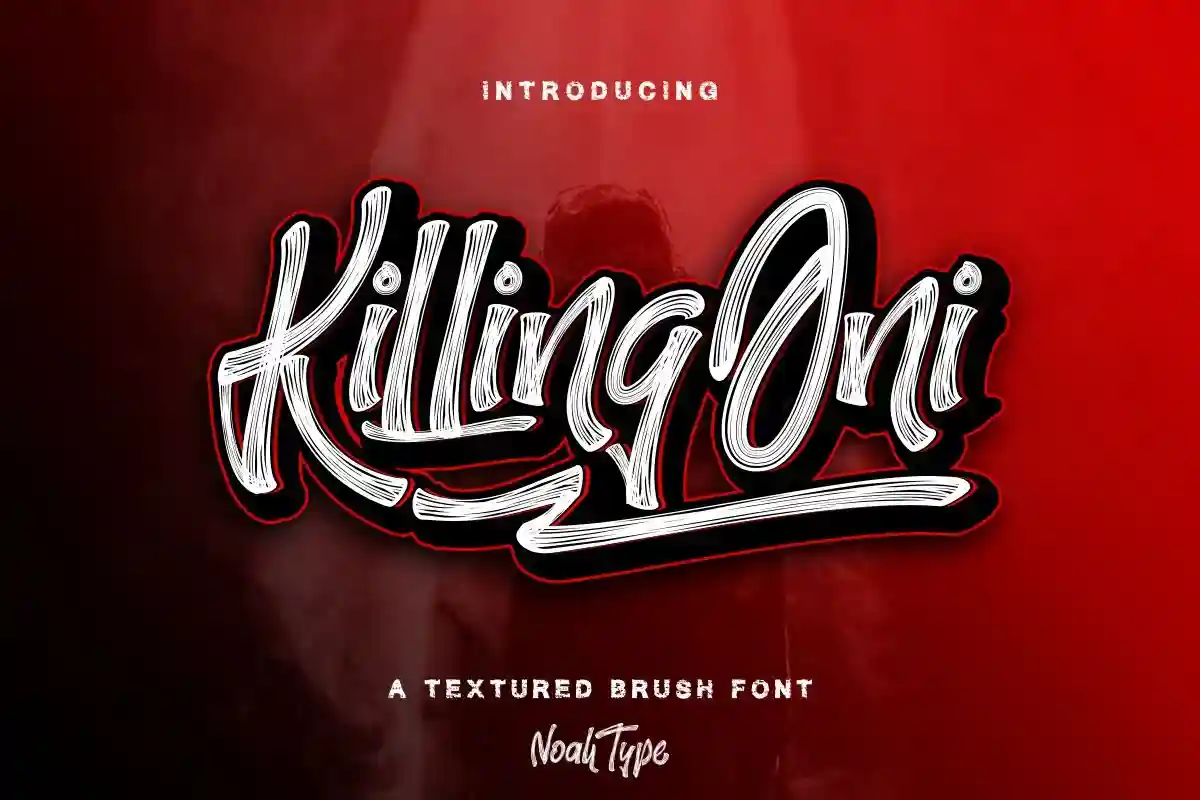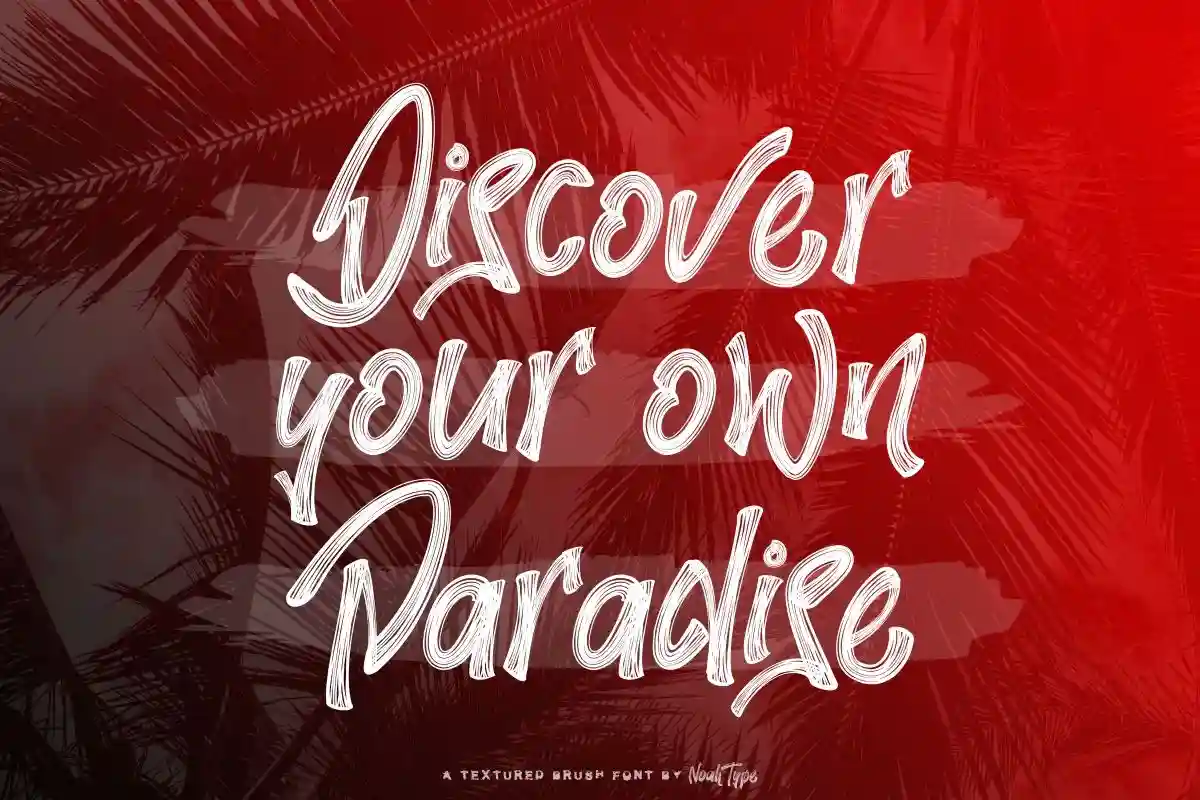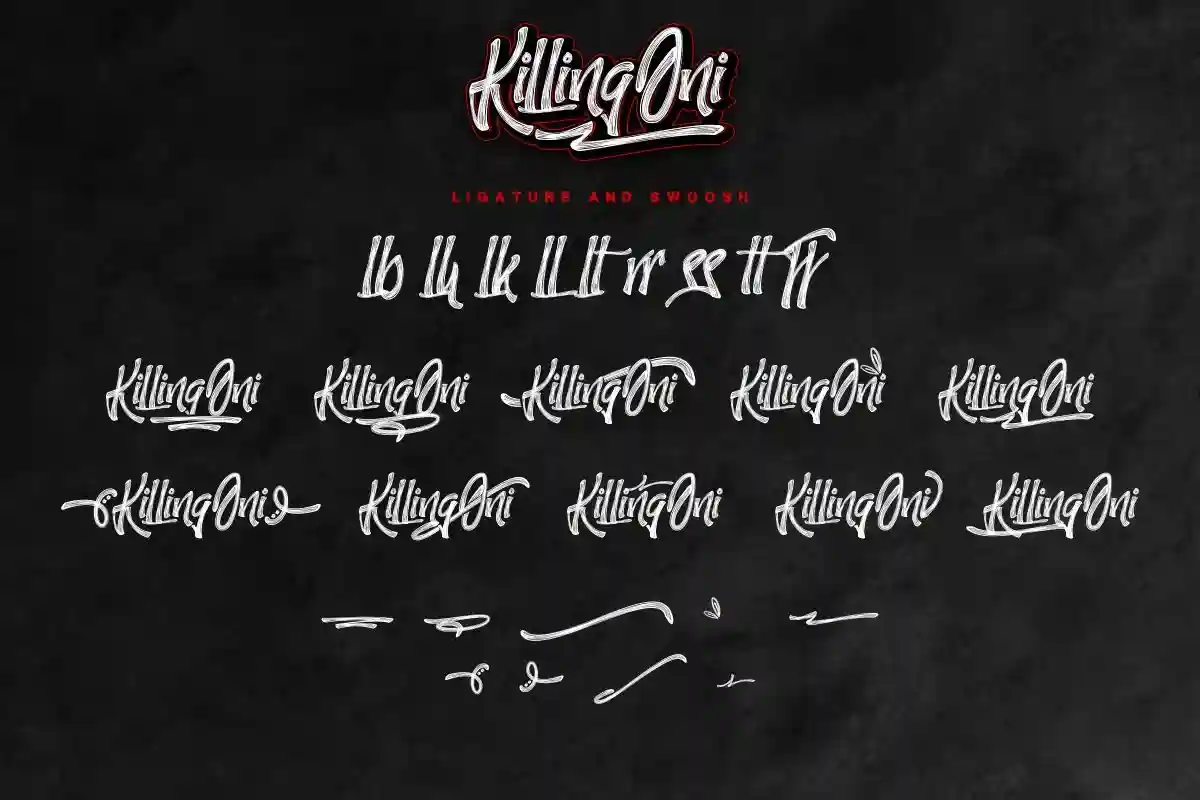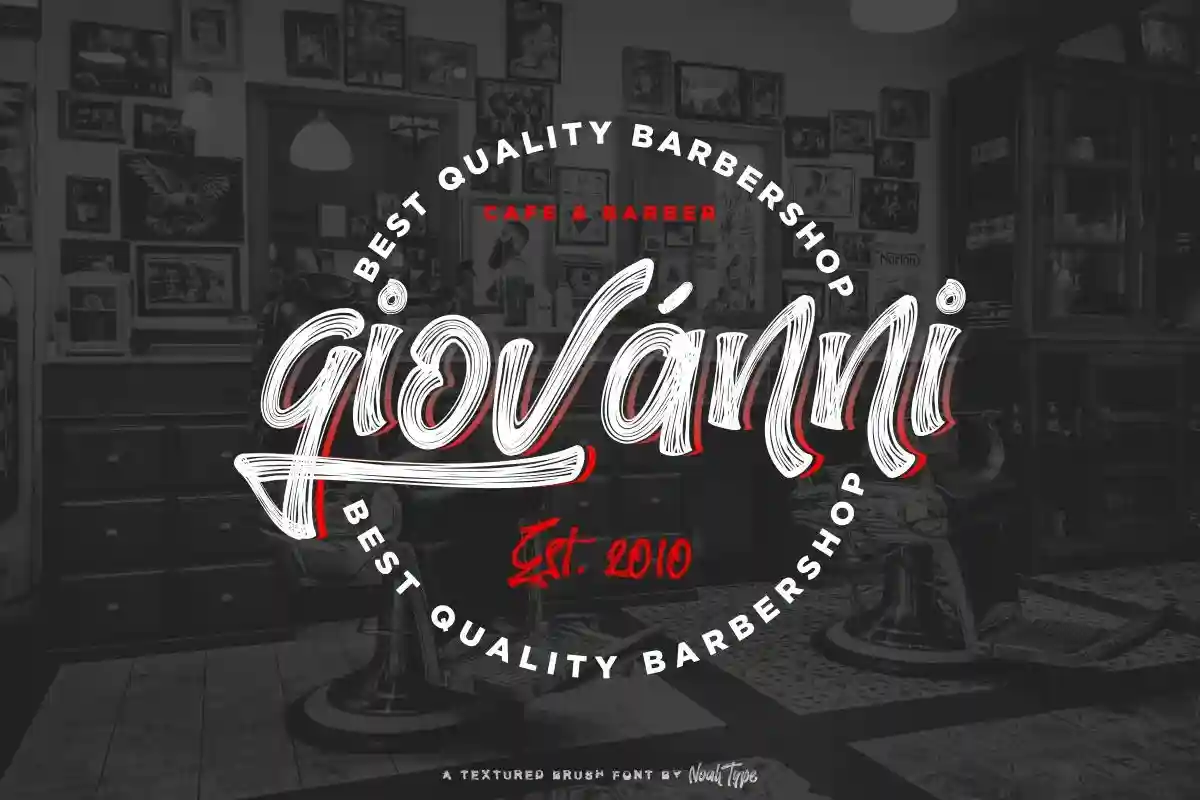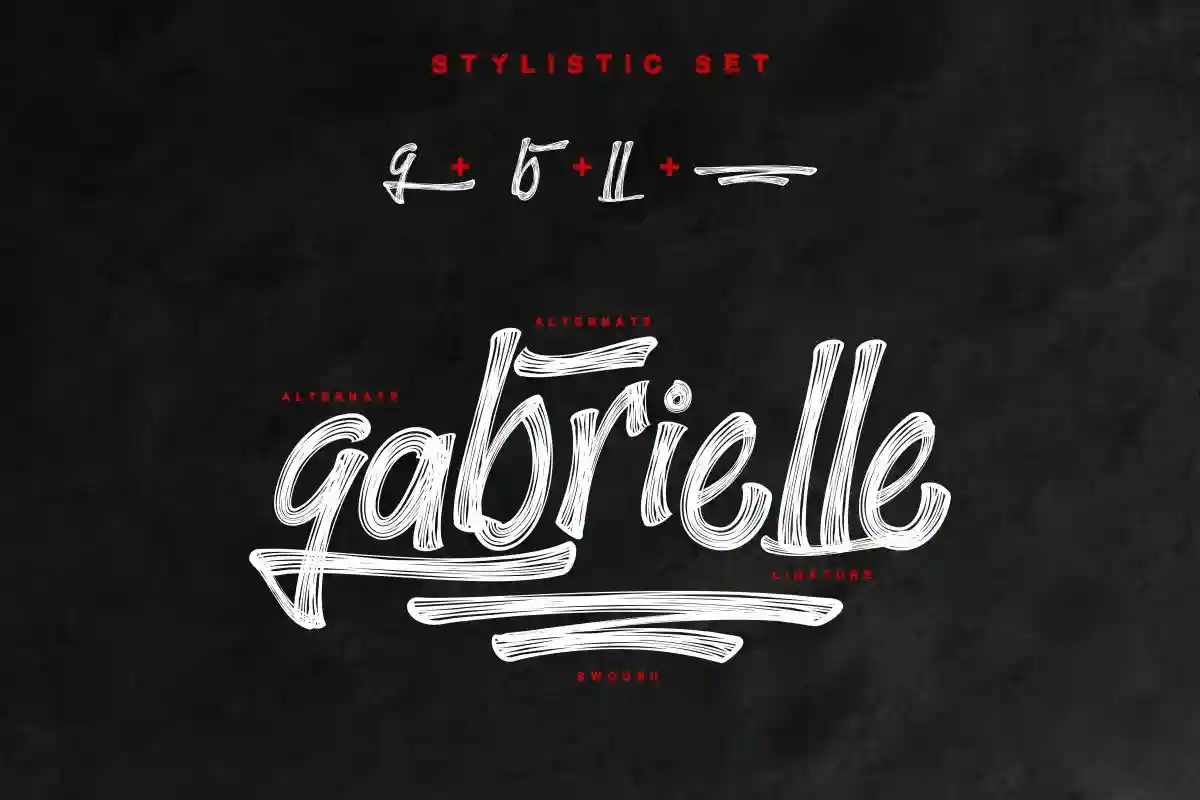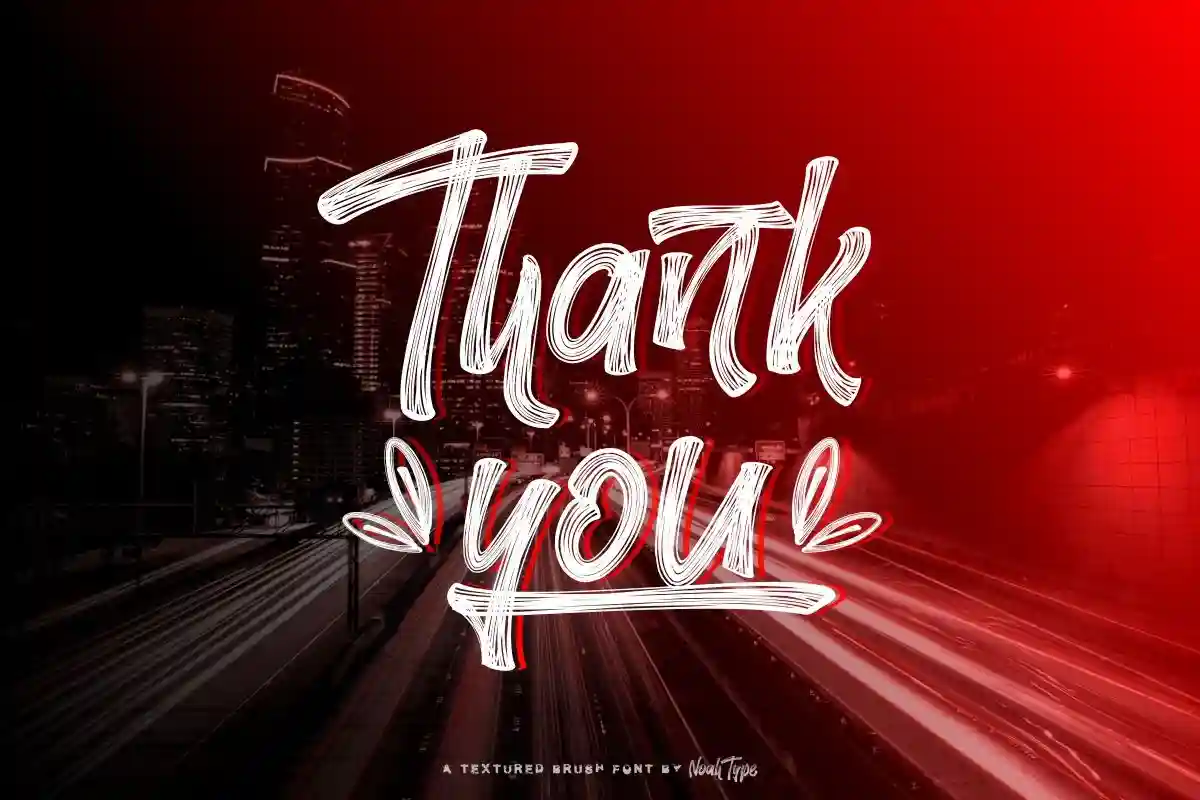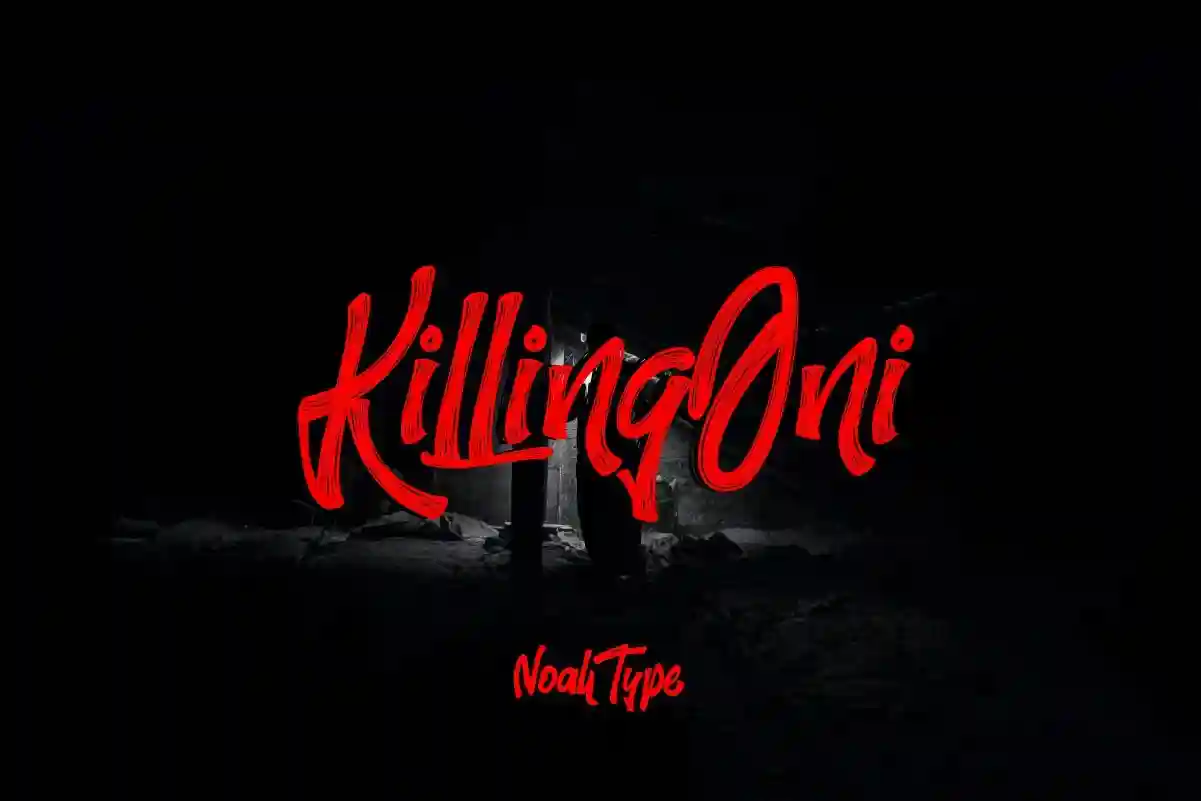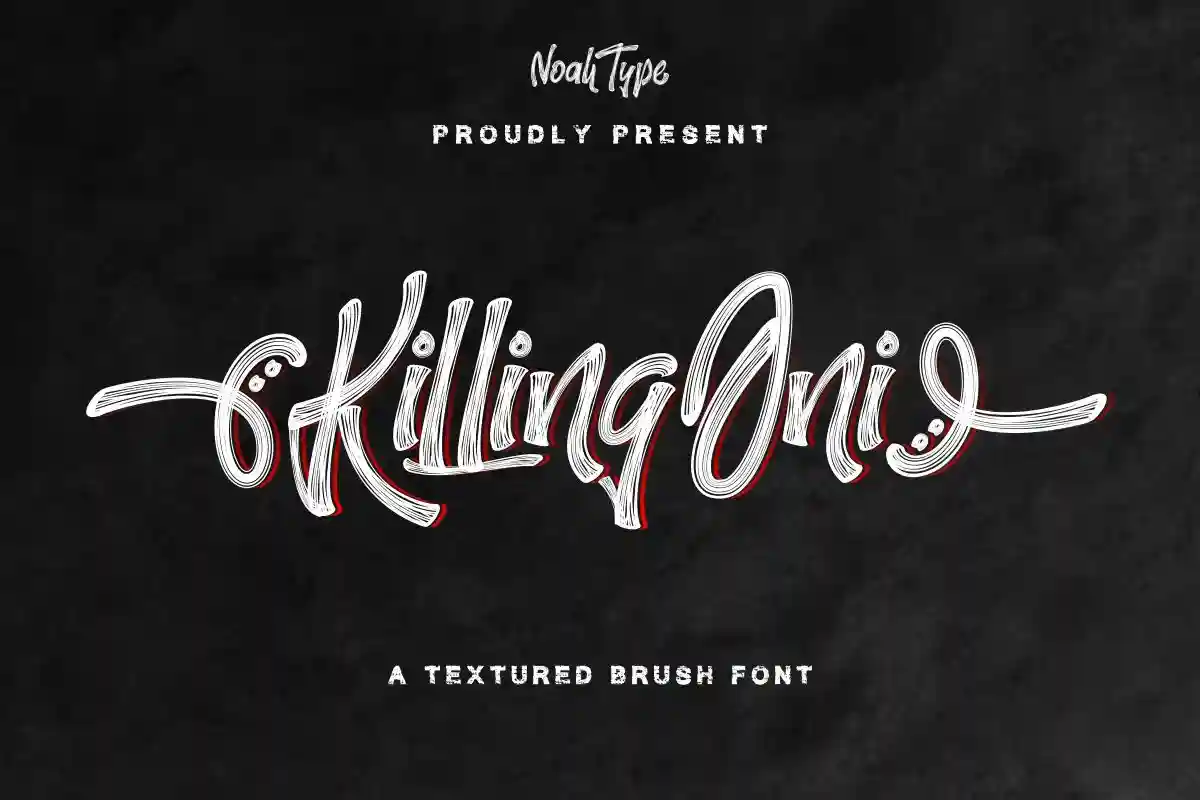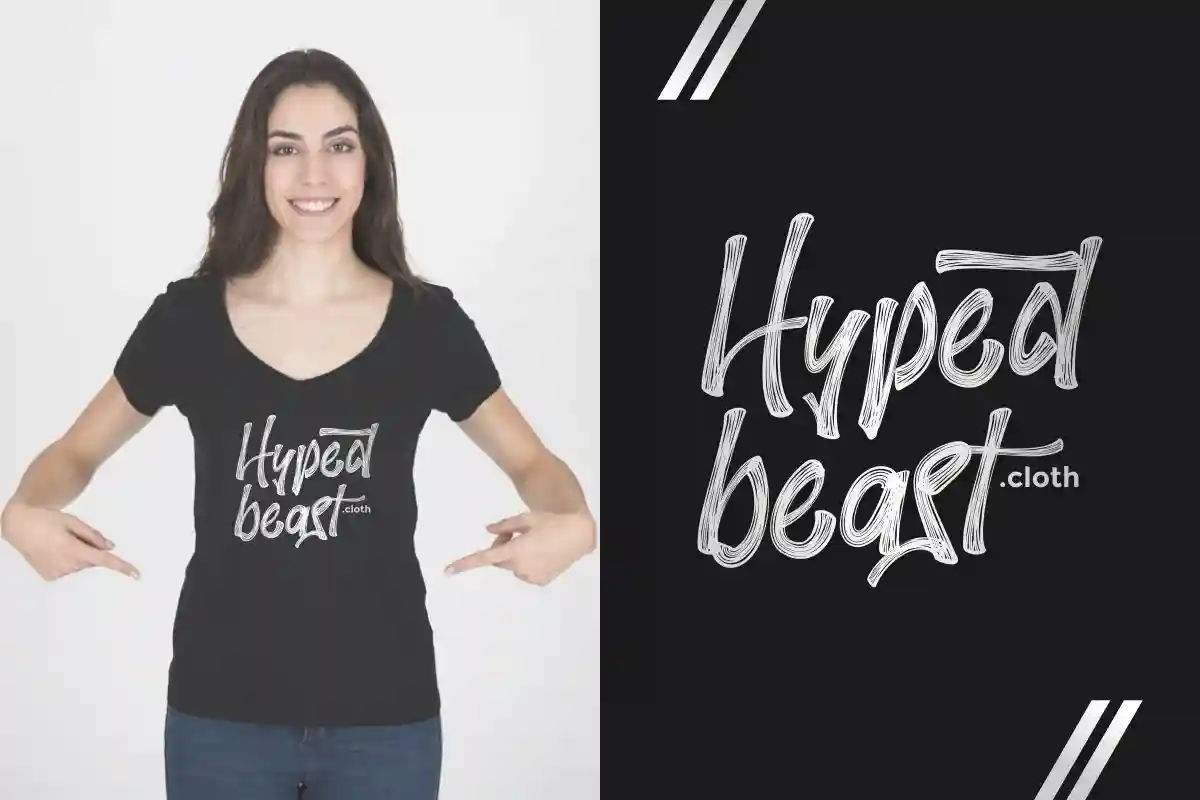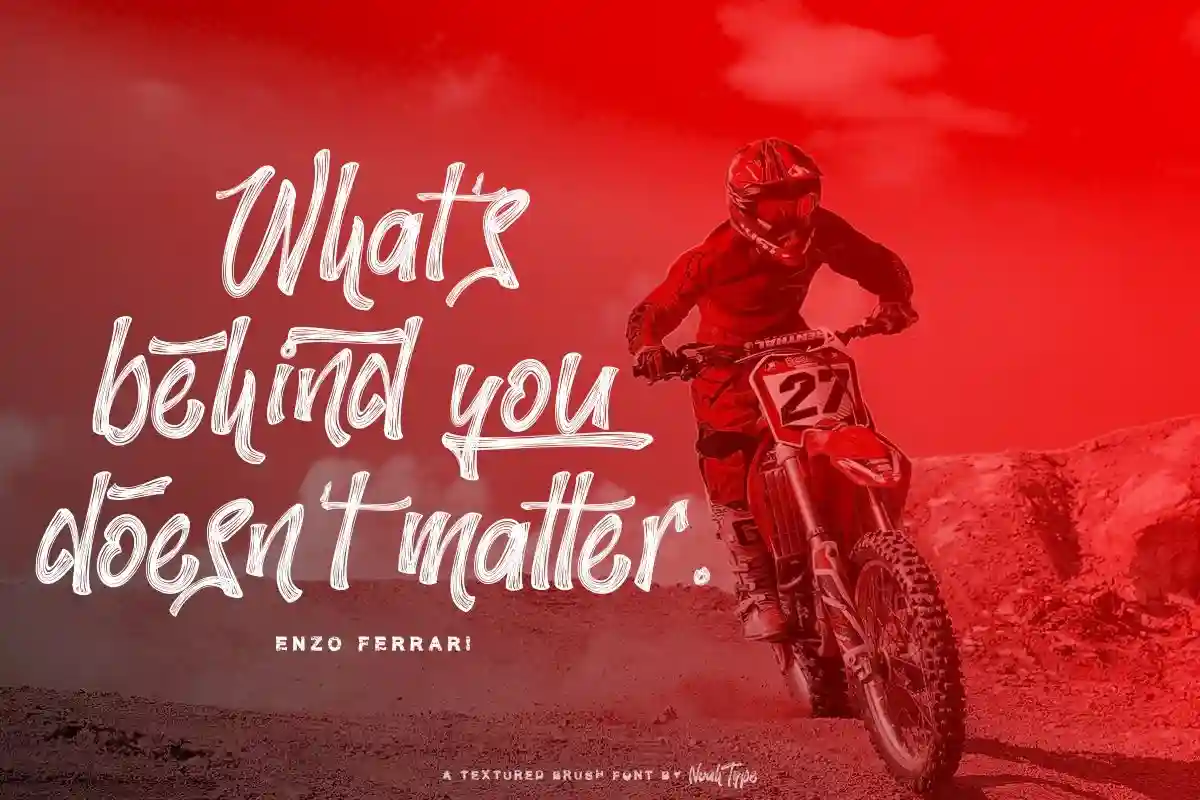
KillingOni Font
KillingOni Font is an awesome grunge vintage brush font with a unique style and bold typography lines style. This font is crafted carefully in every its single scratch, created to look as close to a natural brush so that it can create the perfect combination on each glyph. When we make this font, we really want to create a touch that is so free-flowing that it gives a natural impression on its use later. For example, if you want letter ‘s’ that has a flow sketch with letter ‘t’, you can find it in ‘st’ ligature glyph (just type in the text form below for trying). This awesome script is for anyone who need unique textured style for their designs.
KillingOni Font includes full set of Uppercase and Lowercase Basic Characters, Numerals and Punctuation. Also it contains ligatures and a lot of stylistic alternates characters to perfectly make awesome look that add more aesthetic fonts to perfect your extraordinary project.
This font is perfect for many projects, headings, logos, branding design, signatures, quotes, fashion apparel, business card, stationery, invitations and more!